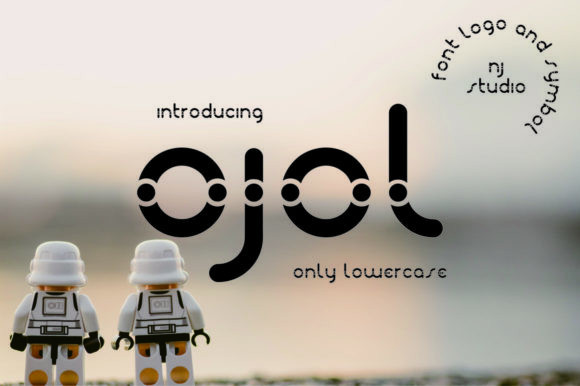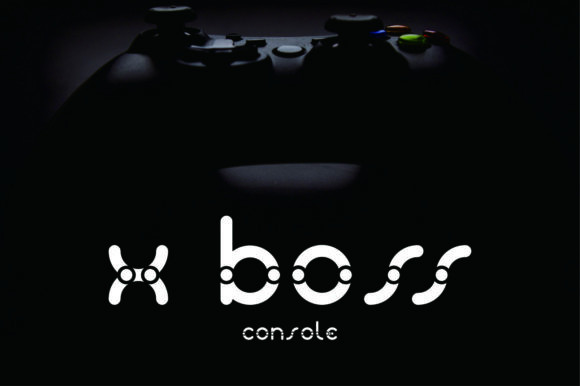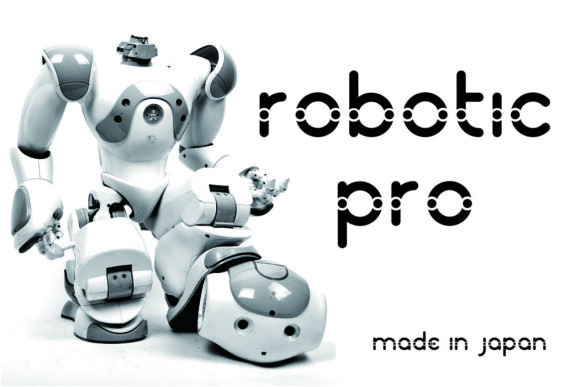
Ojol Font
Ojol is an authentic display font. Only lowercase, this font is perfect for any project related to games, advertising and product packaging.